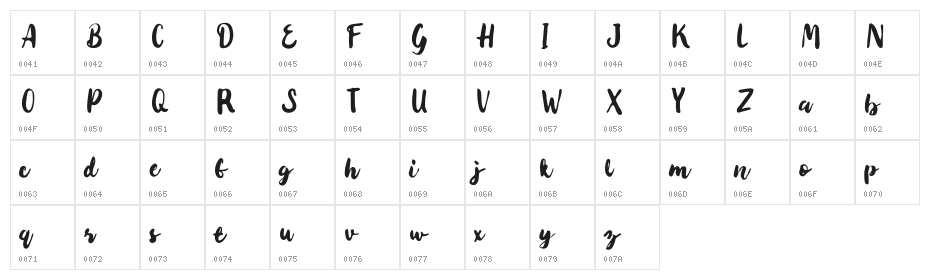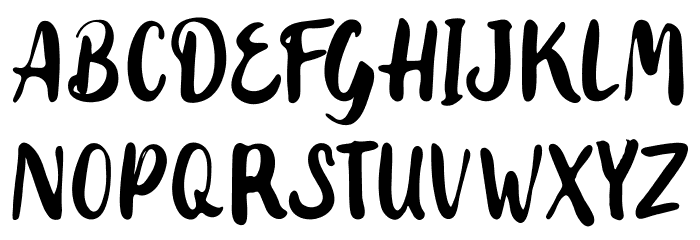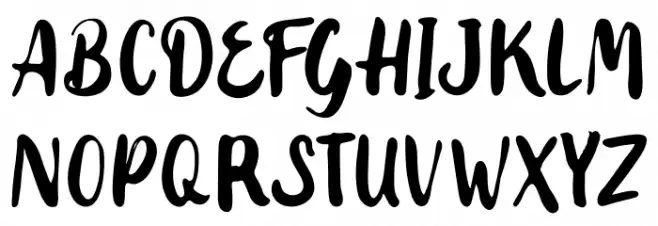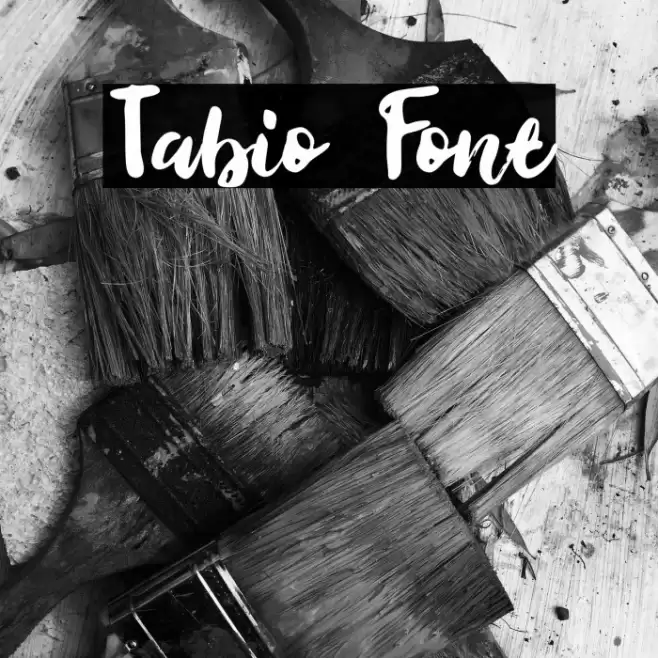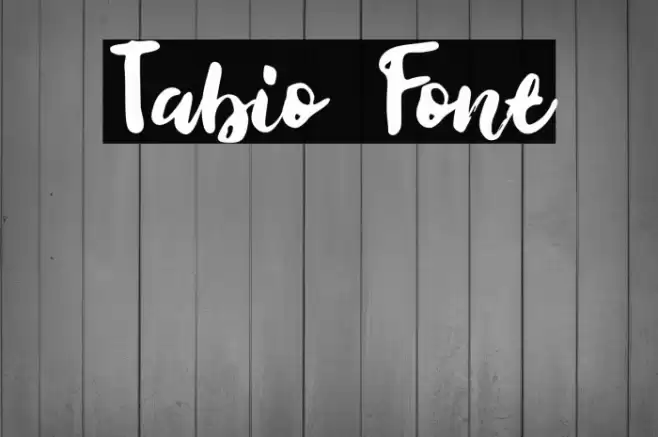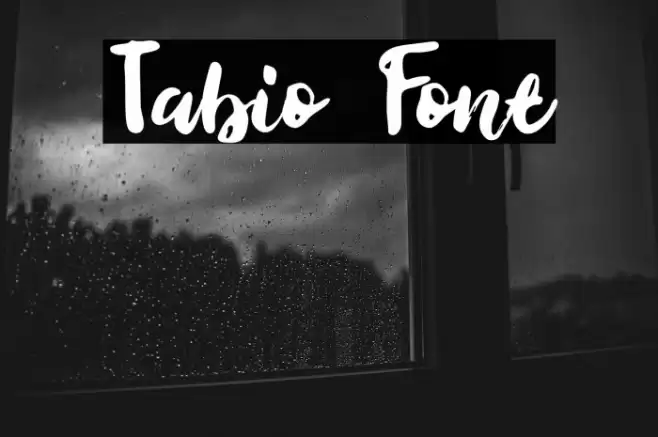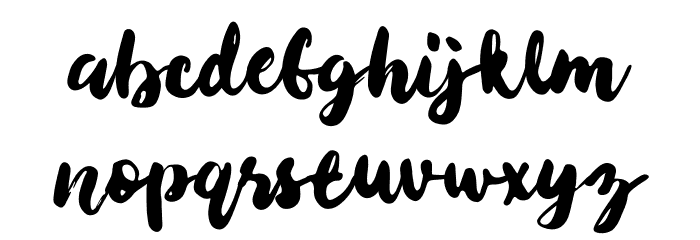
Tabio Font
Tabio Description
This font features a bold, expressive style with a handwritten appearance. The letters are thick and fluid, creating a sense of movement and energy. The uppercase and lowercase characters maintain a consistent flow, with rounded edges and slight variations in stroke width that add a personal touch. The font's playful and artistic nature makes it stand out, while its legibility ensures it remains functional. The overall design is both modern and approachable, making it suitable for a variety of creative applications.
| Use Case | Logos, Headlines, Creative projects |
| Proposed Projects | Ideal for branding, invitations, greeting cards, and creative projects that require a personal touch. |